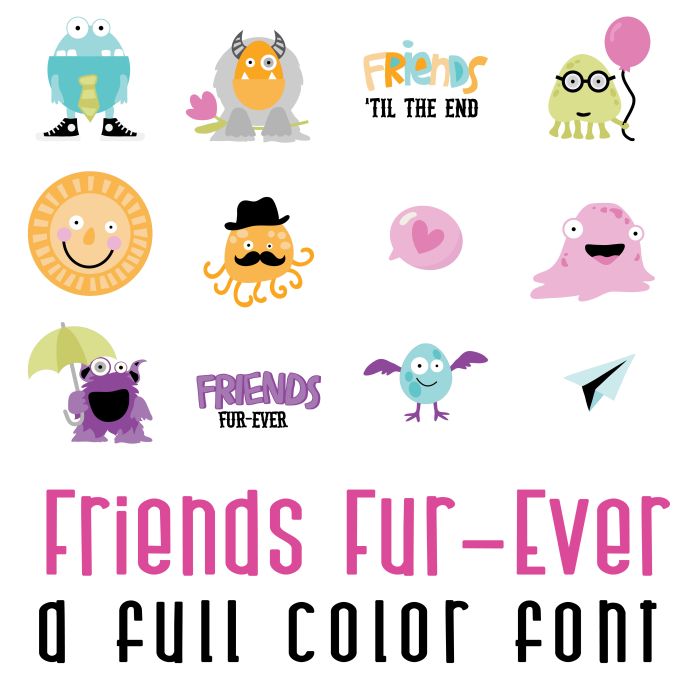
This fun full color font features 26 adorable monster friends perfect for cards, crafts, gifts, classrooms, scrap booking, planner stickers and more!